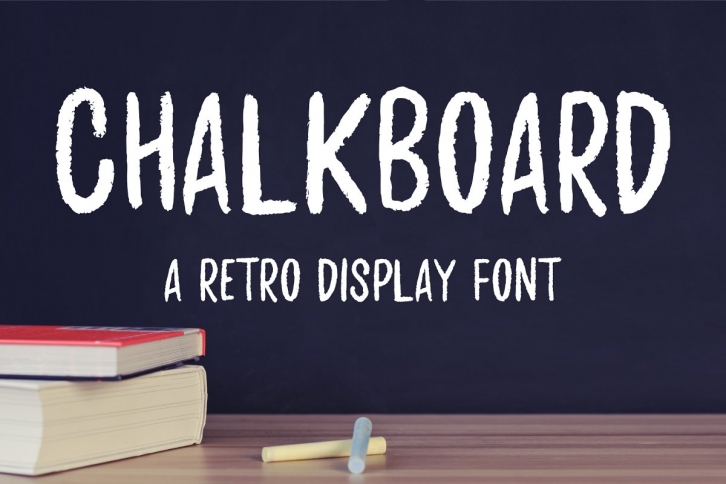
Chalkboard is a fun retro display font.
Perfect for a retro feel, anywhere you'd like a handwritten feel of chalkboard lettering.
It's made so that you can write in either lowercase or uppercase and get the same beautiful result, with minimal effort.